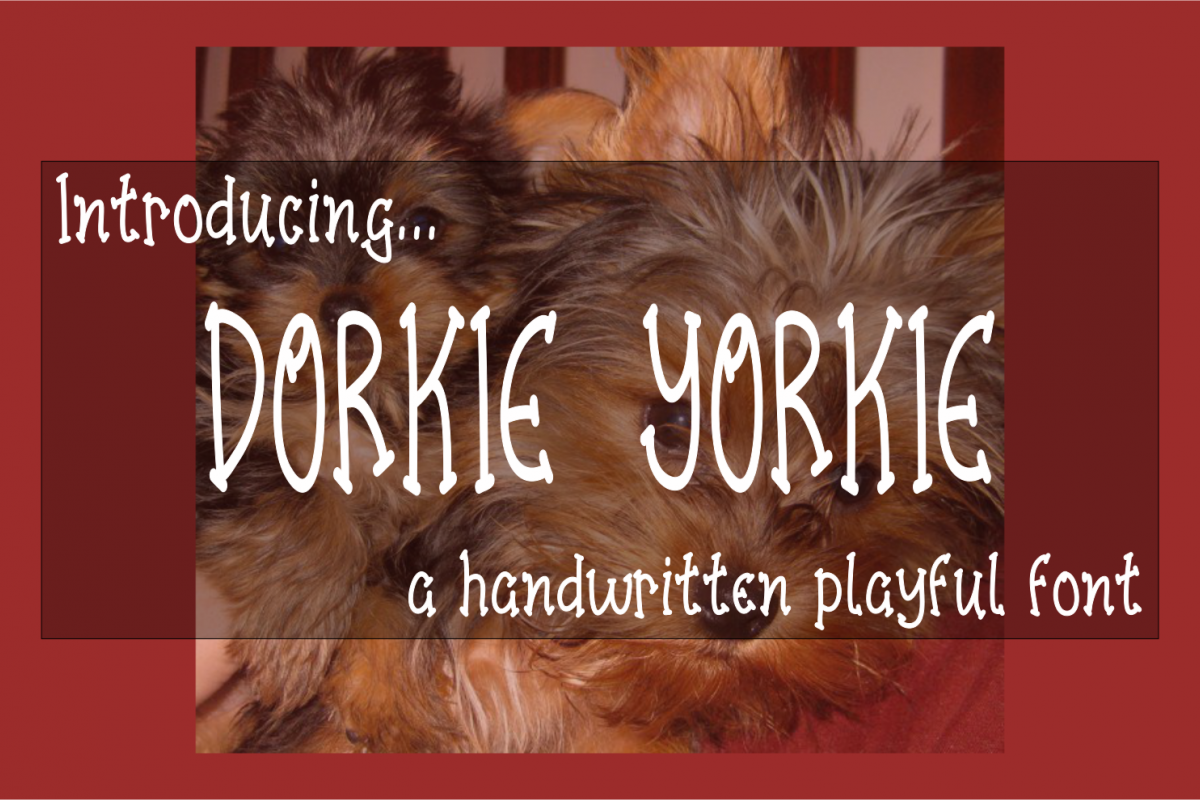
Looking for a handwritten playful font? No fear Dorkie Yorkie is FINALLY here! Also comes with a BONUS Taco Tuesday SVG - Because who doesn't love Dorkie Yorkies & Tacos!?